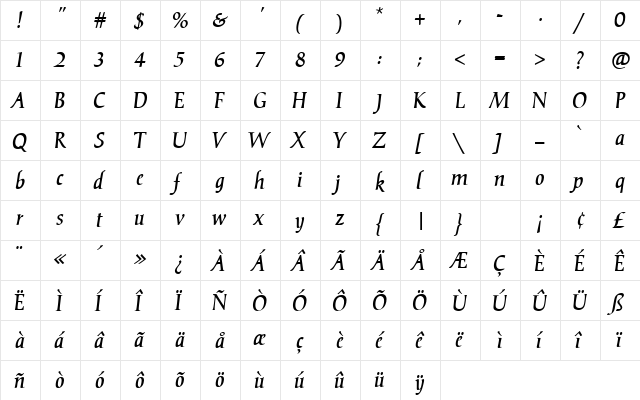
CAC Saxon Bold Regular
Design Context for CAC Saxon Bold Typeface
CAC Saxon Bold takes a measured approach to typography — its balanced proportions and neutral character make it a reliable workhorse for both digital and print work. Its bold stroke weight gives it real presence on the page.